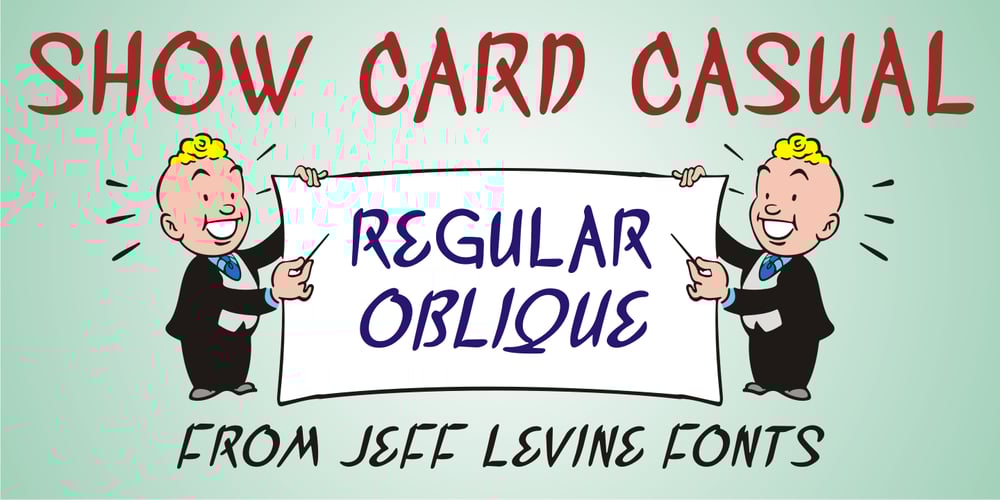
Show Card Casual JNL
Show Card Casual JNL Font Family was designed by Jeff Levine and published by Jeff Levine. Show Card Casual JNL contains 2 styles and family package options. Alf Becker graced the pages of “Signs of the Times” magazine month after month for decades, presenting attractive and unusual hand lettered alphabets as inspiration for other sign painters and show card writers. From straightforward text faces to novelty ideas, Becker’s talent as a master sign crafter was constant in his work. Show Card Casual JNL is one example of what is referred to as a “one stroke” alphabet (utilizing a single brush stroke in each direction to form the letter or number). Its casual look and playful charm allow for a message to be presented in an informal format that is pleasing to the eye. The type design is available in both regular and oblique versions. Special thanks to Tod Swormstedt of ST Publications for providing the reference material.